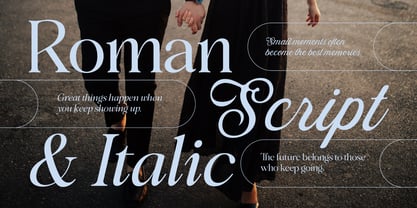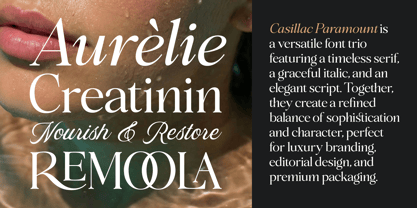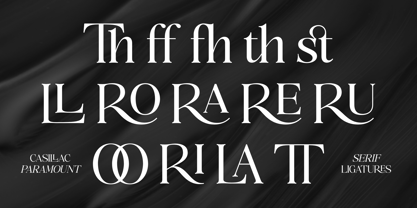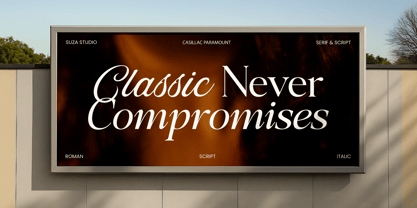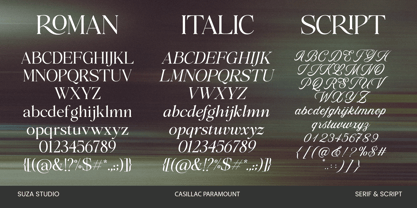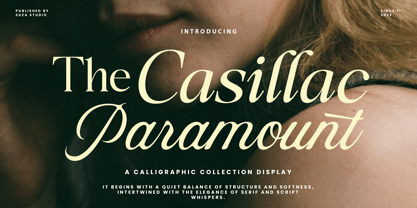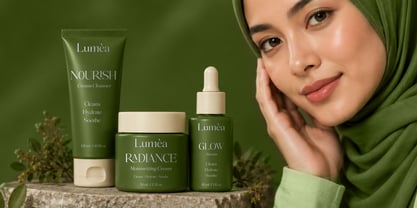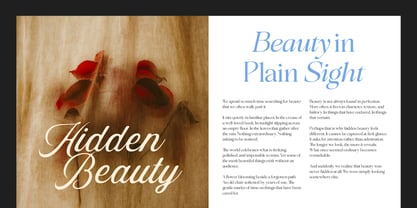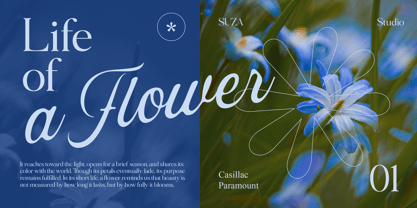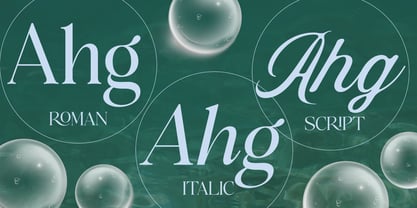
The Casillac Paramount Serif
by Suza Studio
The The Casillac Paramount Serif Font Family was designed by Zikrillah and published by Suza Studio. The Casillac Paramount Serif contains 3 styles and family package options. More about this family
The Casillac Paramount is a captivating blend of script and serif, exuding a timeless atmosphere and nostalgic charm that enhances every design. This unique blend brings a touch of sophistication to any project, making it an ideal choice for branding, editorial layouts, and social media visuals. With its versatile aesthetic, The Casillac Paramount enriches your design toolkit, offering endless creative possibilities for refined and stunning results.
Designers: Zikrillah
Foundry: Suza Studio